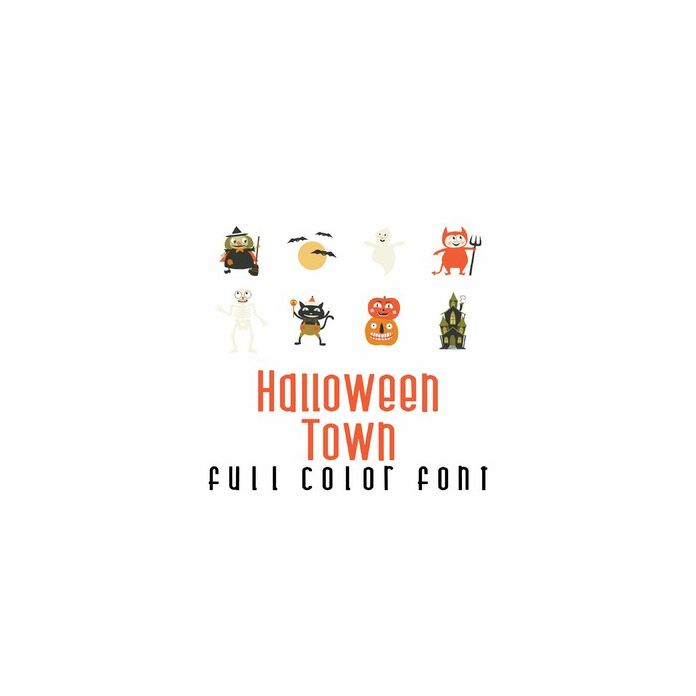
This fun full color doodlebat font features 26 vintage style Halloween images. Perfect for cards, crafts, gifts, decor, scrap book pages, planner stickers and more!